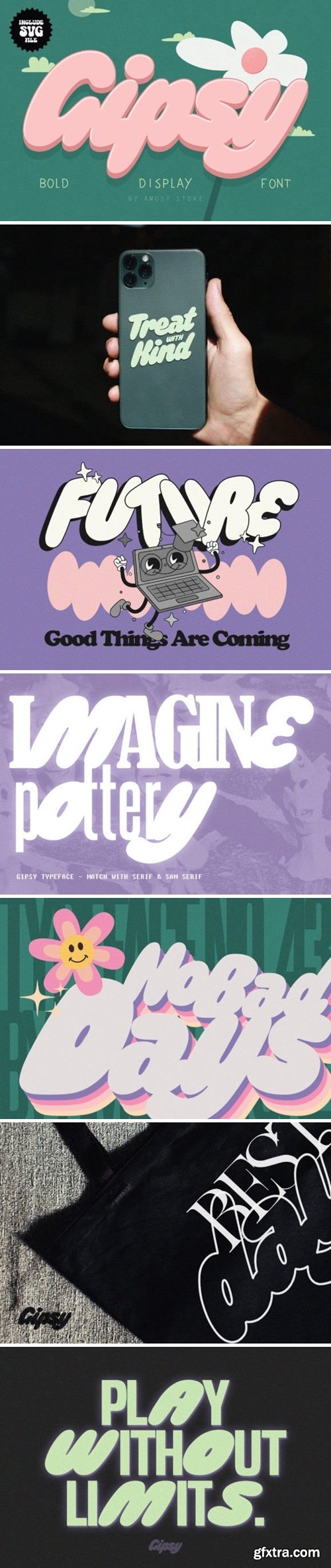
吉普斯字体
Gipsy is a bold and retro display font. It is perfect for your display or product design such as shirts, boho designs, stickers, logos, branding, greeting cards, circuit projects, posters, magazines, social media, planner prints and websites.